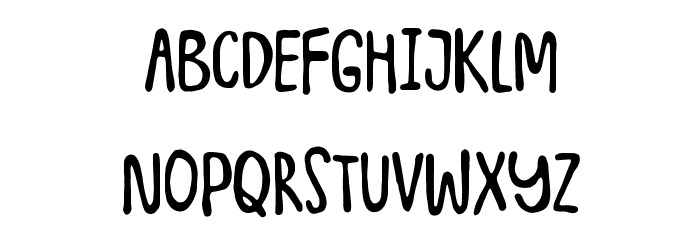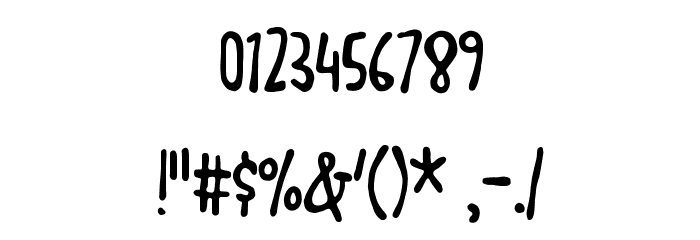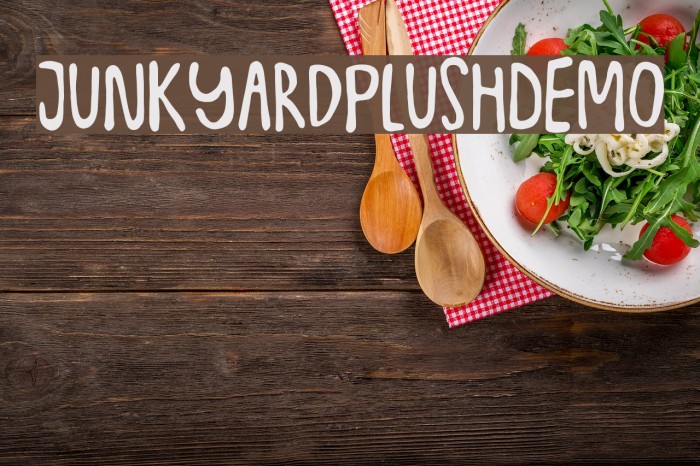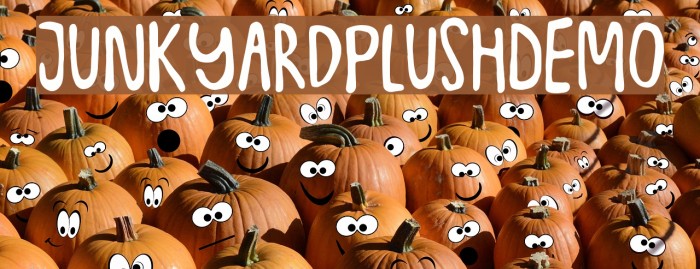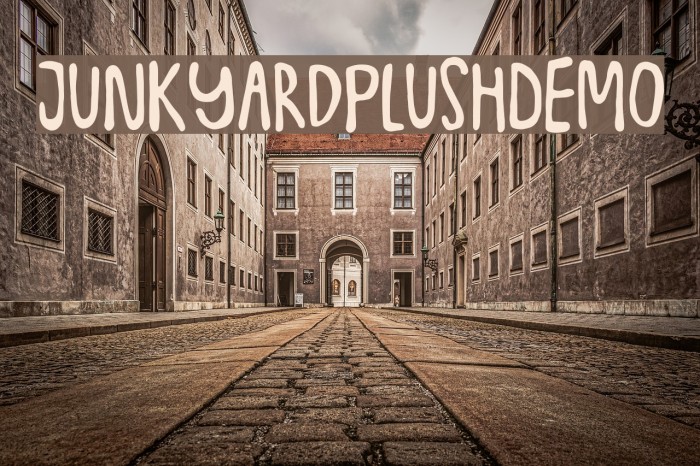
JunkyardPlushDEMO Font
This playful and whimsical font features rounded, irregular shapes that give it a hand-drawn, casual feel. The letters have a consistent thickness, contributing to a uniform appearance while maintaining a sense of fun and creativity. The characters are slightly uneven, adding to the charm and uniqueness of the design. The font includes a full set of uppercase and lowercase letters, numbers, and a variety of special characters, making it versatile for different uses. Its informal style is perfect for projects that require a touch of personality and warmth.
A playful, hand-drawn font with rounded, irregular shapes and a casual feel.
- Proposed Projects: Ideal for children's books, playful branding, greeting cards, and creative posters.
- Overall Style: Casual